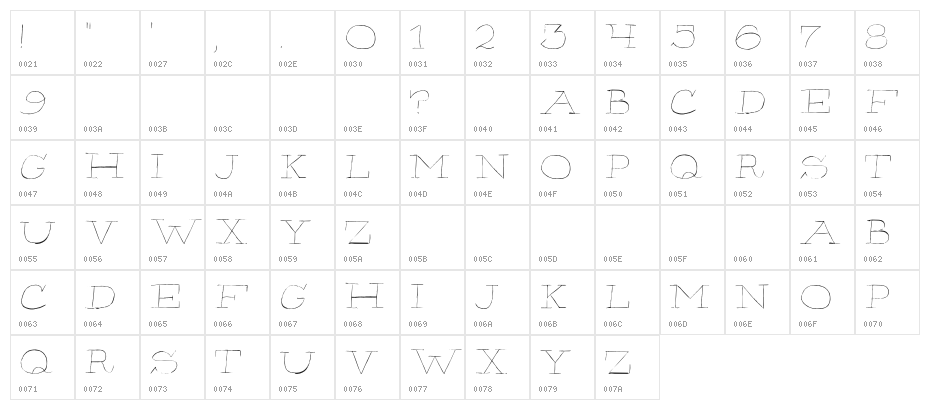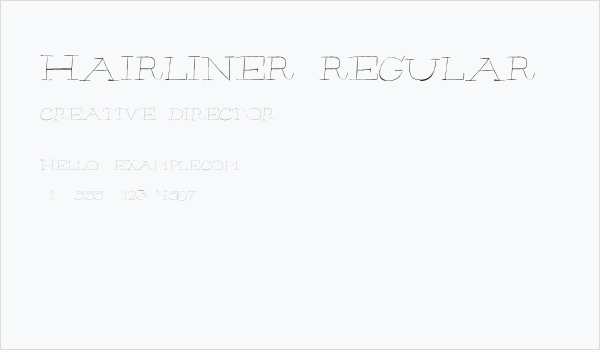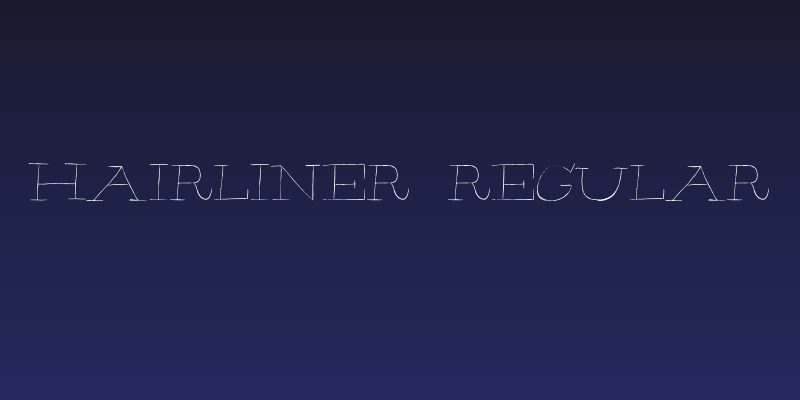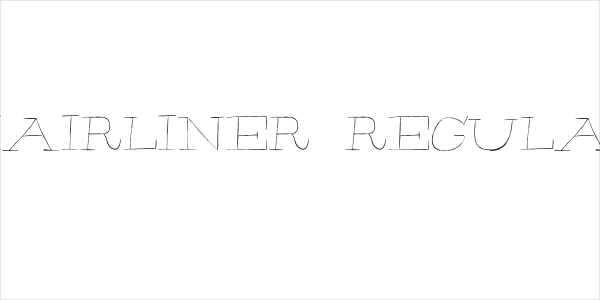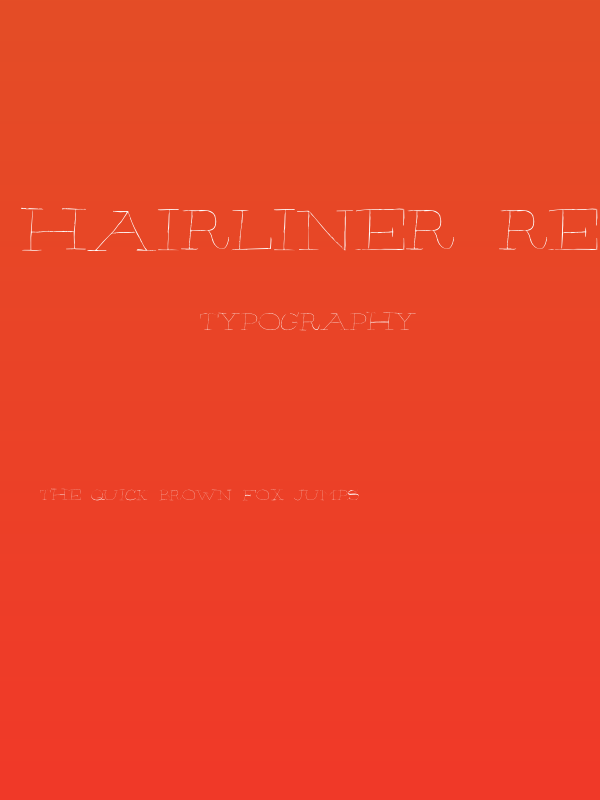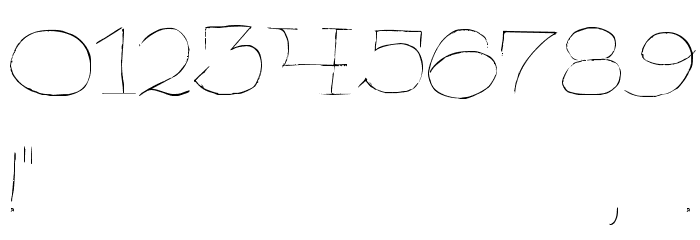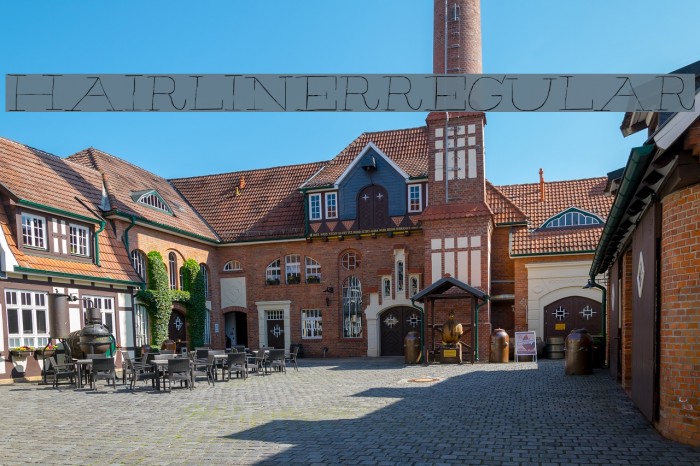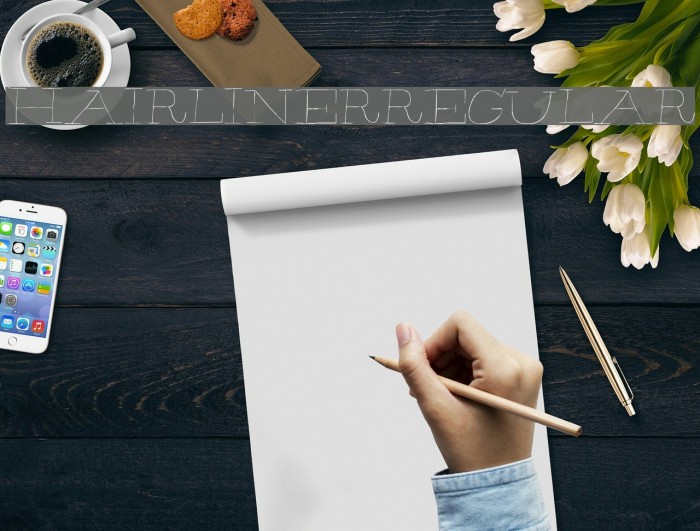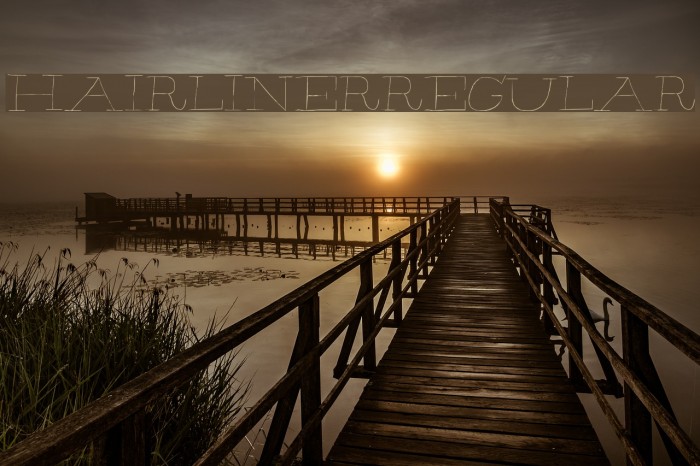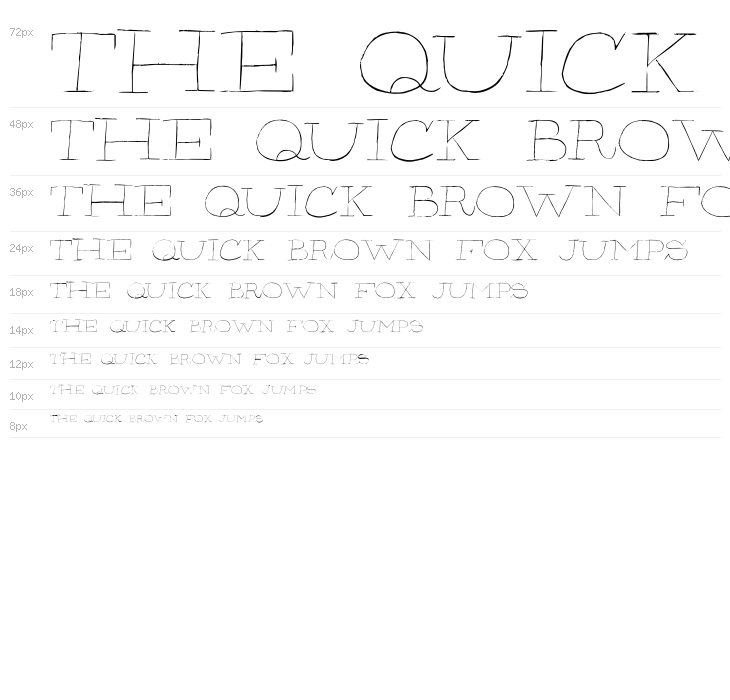
Hairliner-Regular Font
Hairliner-Regular Description
This font features a unique and artistic design with thin, hairline strokes that give it a delicate and airy appearance. The characters are constructed with a combination of straight lines and subtle curves, creating a modern and sophisticated look. The uppercase and lowercase letters maintain a consistent style, with a slight slant that adds a dynamic feel. The numerals are distinct and align well with the overall aesthetic, while the special characters complement the set with their minimalist design. This font's light and elegant structure makes it suitable for creative and stylish projects.
| Proposed Projects | Ideal for fashion magazines, elegant invitations, branding for luxury products, and artistic posters. |